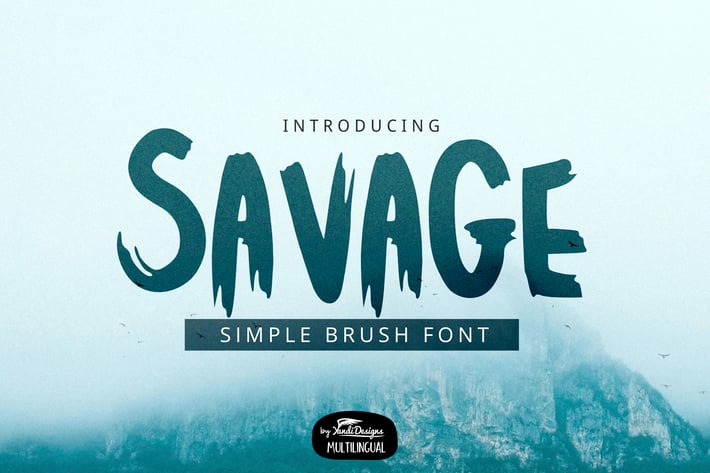
Savage Font
Savage is simple multipurpose handmade brush font, suitable for many project children book, quotes, logo , heading , title etc.
Basic Latin (Standard English character , number, symbol)
Multilingual Support (minimal English, French, Spanish, German, Italian, Indonesian, Malay)